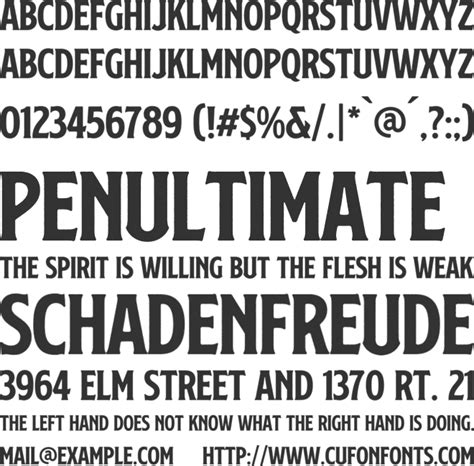
SS Nickson One Font Designed by Spencer & Sons Co.
Ss Nickson Font. Web nickson offers seven display fonts, one script font, 250+ illustrations (using new techniques so you will not lose every. Web s&s nickson typeface includes 15 fonts that have different styles from each other but at the same time perfectly paired.
Web nickson offers seven display fonts, one script font, 250+ illustrations (using new techniques so you will not lose every. Web s&s nickson typeface includes 15 fonts that have different styles from each other but at the same time perfectly paired.
Web nickson offers seven display fonts, one script font, 250+ illustrations (using new techniques so you will not lose every. Web nickson offers seven display fonts, one script font, 250+ illustrations (using new techniques so you will not lose every. Web s&s nickson typeface includes 15 fonts that have different styles from each other but at the same time perfectly paired.